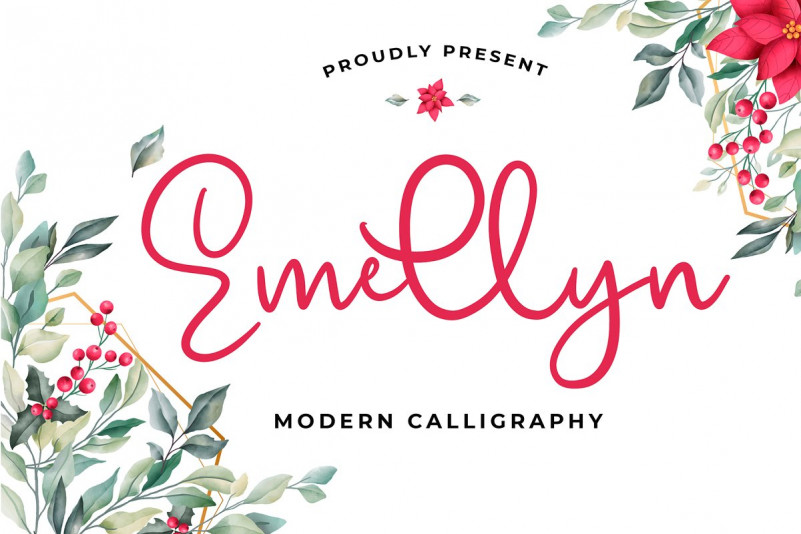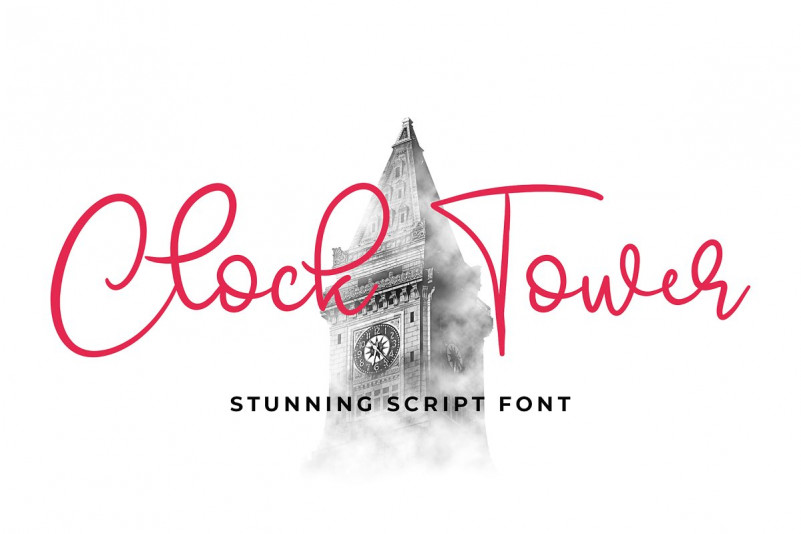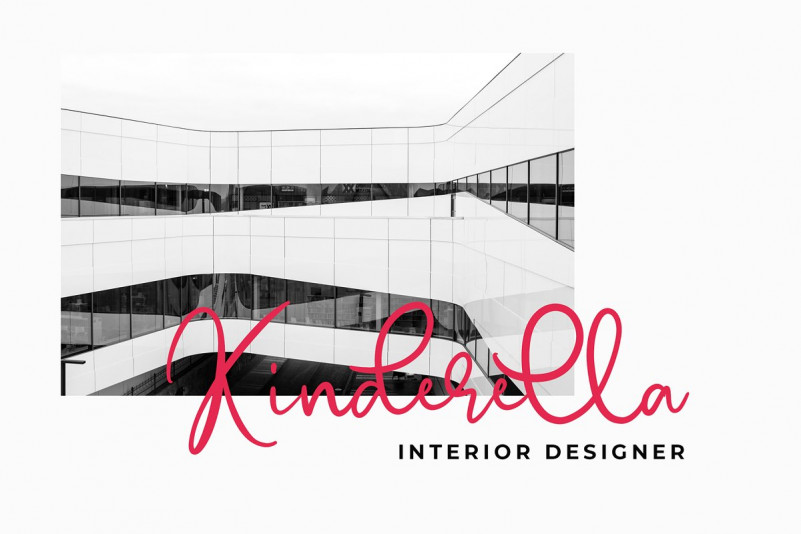
Emellyn Font
Emellyn is a lovely modern calligraphy font. It’s combining the classic style of calligraphy with a more modern style.
Emellyn can be used for various purposes such as logos, wedding invitations, t-shirts, letterheads, signage’s, labels, and much more!